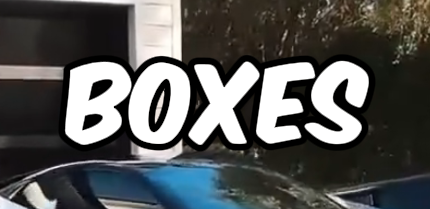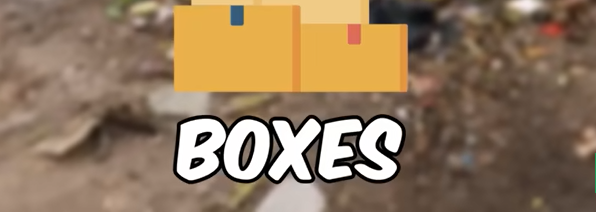
what font is it
The closest matches are:
1. Luckiest Guy (Google Fonts)
2. Bangers (Google Fonts)
3. Badaboom / Komika Axis (comic pack fonts)
This looks like one of those bold, playful "cartoon" fonts that are popular on YouTube thumbnails. I am not sure about it but it's very close to Luckiest Guy or Bangers, which are often used for this kind of text.
My research shows "Chortle Sign Painter & Marker Font" as the closest alternative.